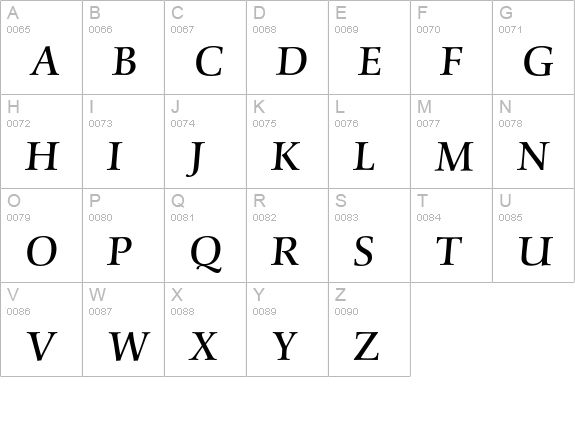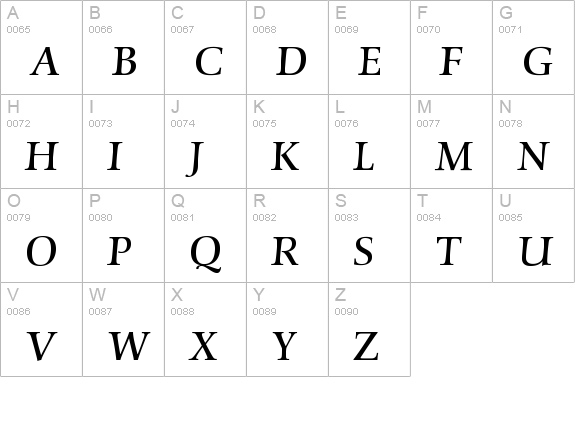
Schneider-Antiqua Italic is a distinctive, italic variant in the Schneider typeface family \xE2\x80\x94 well suited to design and typography projects.
Schneider-Antiqua Italic is a timeless and elegant font that exudes sophistication and charm. With its slanted and flowing letterforms, this italic variant of Schneider-Antiqua adds a touch of graceful movement to any design. Designed with meticulous attention to detail, Schneider-Antiqua Italic showcases the perfect balance between classic and modern aesthetics. The delicate curves and well-crafted serifs create a harmonious composition that is both visually appealing and highly legible. This exquisite font is a versatile choice for a wide range of projects. Whether you are designing a book cover, a wedding invitation, or a logo, Schneider-Antiqua Italic adds a touch of refinement and elegance. Its versatility allows it to seamlessly adapt to both formal and informal settings, making it a go-to choice for designers seeking a font that effortlessly expresses sophistication. One of the best features of Schneider-Antiqua Italic is that it is freely available to download at FontsMarket.com. This means that you can easily access and use this incredible font without any cost. Whether you are a professional designer or an enthusiast, the availability of Schneider-Antiqua Italic for free makes it an invaluable resource that you can incorporate into your projects without restrictions. So, if you are looking for a font that combines timeless elegance with contemporary appeal, look no further than Schneider-Antiqua Italic. Download this remarkable font for free at FontsMarket.com and elevate your designs with its captivating beauty.